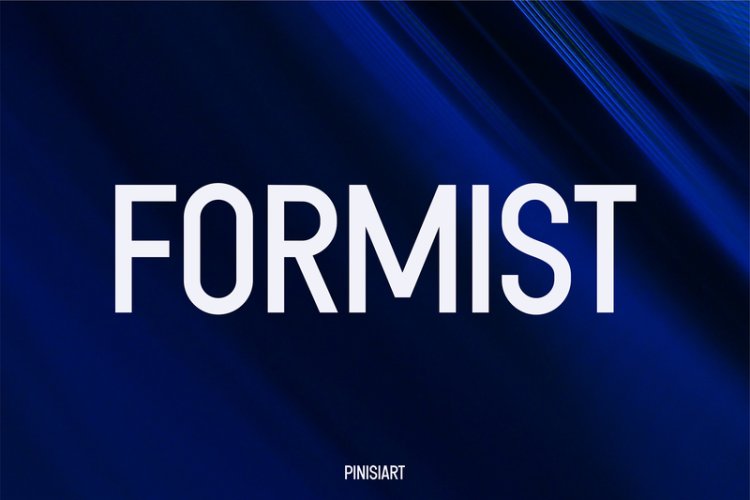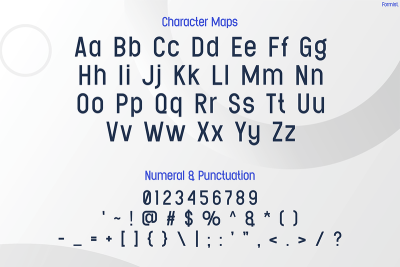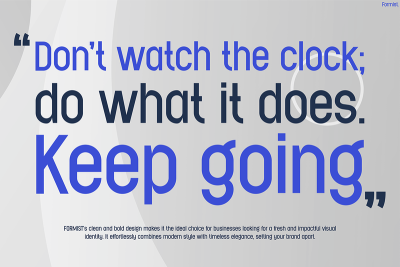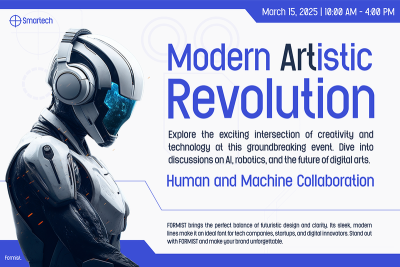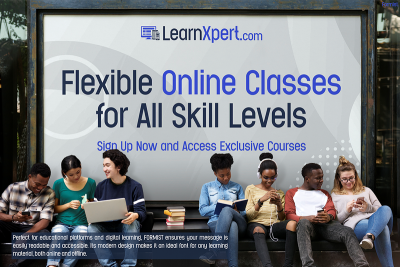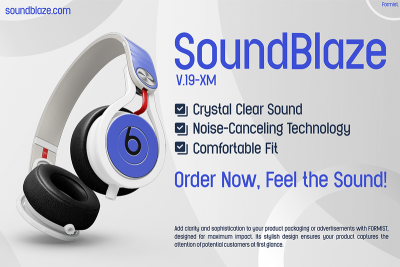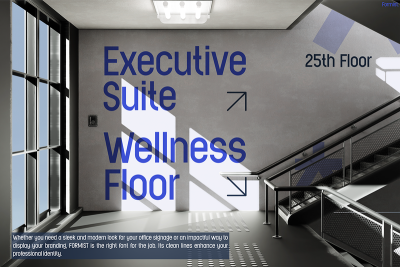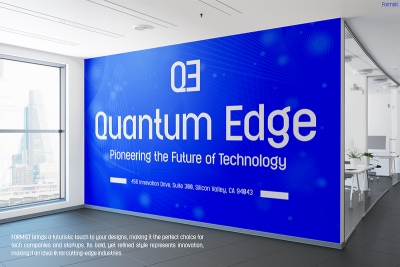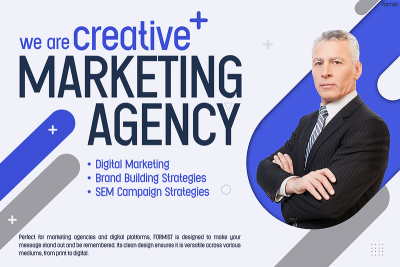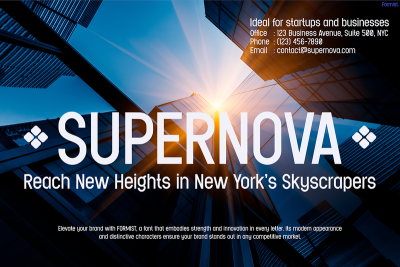
Futuristic Font Formist offers a sleek, modern typeface that adds sophistication to any project. Its bold yet minimalistic design ensures confidence and clarity, making it ideal for strong visual impact. With clean lines and geometric precision, Formist creates a futuristic appeal, perfect for branding, marketing, and editorial design.
What makes Formist truly special is its versatility. Whether you use it for headlines, social media, or corporate branding, it maintains a professional yet innovative look. Additionally, its slightly condensed spacing enhances readability, ensuring a clear message on both digital and print platforms.
Moreover, Formist takes inspiration from the digital world. It balances proportion and structure to create a polished appearance. As a result, it helps forward-thinking brands and creatives stay ahead of design trends.
Who Should Use Formist Futuristic Font?
โ Marketing Agencies & Branding Experts โ Formistโs bold, structured design ensures marketing campaigns, brand identities, and corporate presentations make a strong impact. Whether youโre creating social media content, advertisements, or reports, this font enhances professionalism.
โ Tech Startups & Futuristic Brands โ Thanks to its sleek and modern aesthetic, Formist is an excellent choice for tech companies, AI-driven businesses, and digital innovators. It works perfectly for branding, pitch decks, and UI/UX designs, as it reflects progress and innovation.
โ Creative Designers & Digital Artists โ Graphic designers, web designers, and content creators will appreciate Formistโs adaptability. Whether you are designing a futuristic website, an engaging social media post, or a high-end magazine layout, this font provides a sophisticated edge.
โ Corporate & Business Professionals โ For companies needing a polished typeface for presentations, reports, or proposals, Formist remains a reliable choice. Its modern appeal not only enhances readability but also elevates business materials.
โ Editorial & Print Designers โ Formist is also perfect for magazines, brochures, and high-end editorial layouts. Its geometric structure and clean, structured look ensure excellent legibility, especially for long-form content.
In conclusion, Futuristic Font Formist is more than a typefaceโitโs a statement of style, modernity, and professionalism. Whether you are working on branding, digital content, or corporate materials, Formist ensures your message stands out with impact.